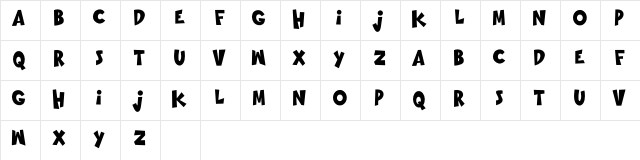
GOING MERRY Regular Font Preview
GOING MERRY Regular
GOING MERRY Regular Font Details
Design Context for GOING MERRY Typeface
GOING MERRY is a composed and adaptable typeface that performs quietly and consistently across a wide range of design contexts.